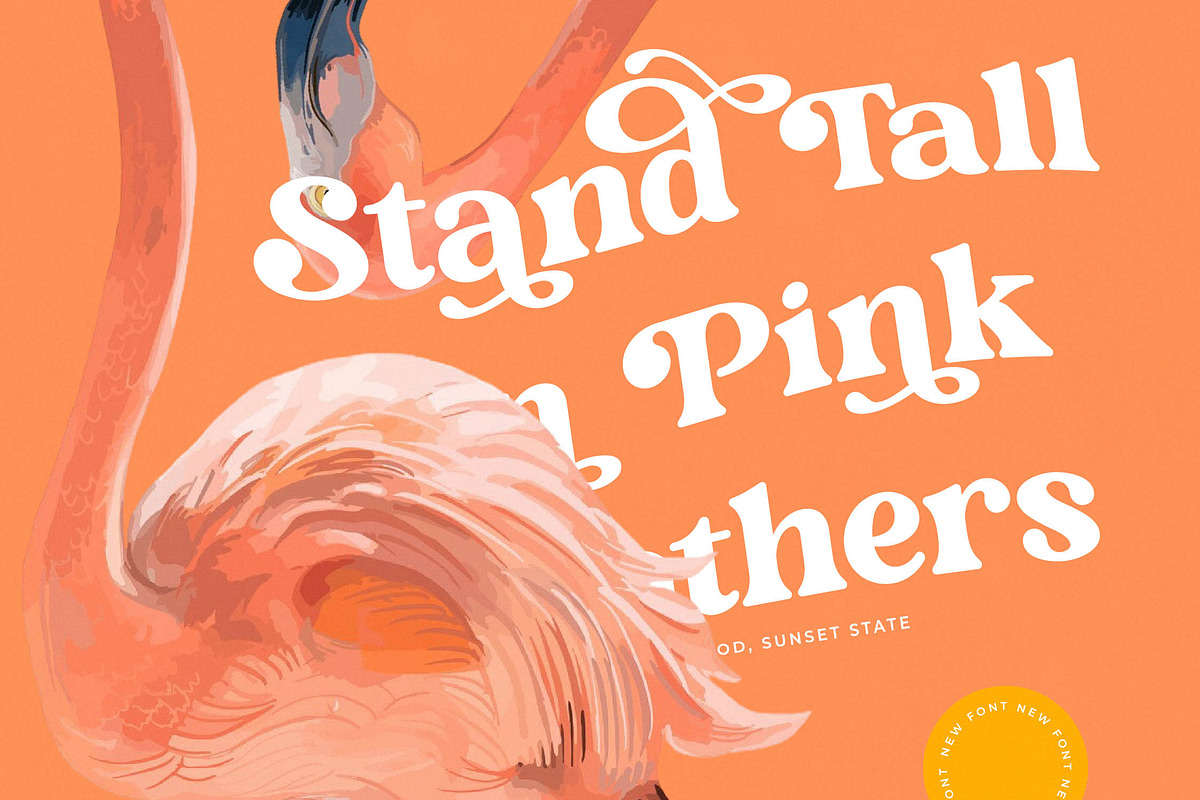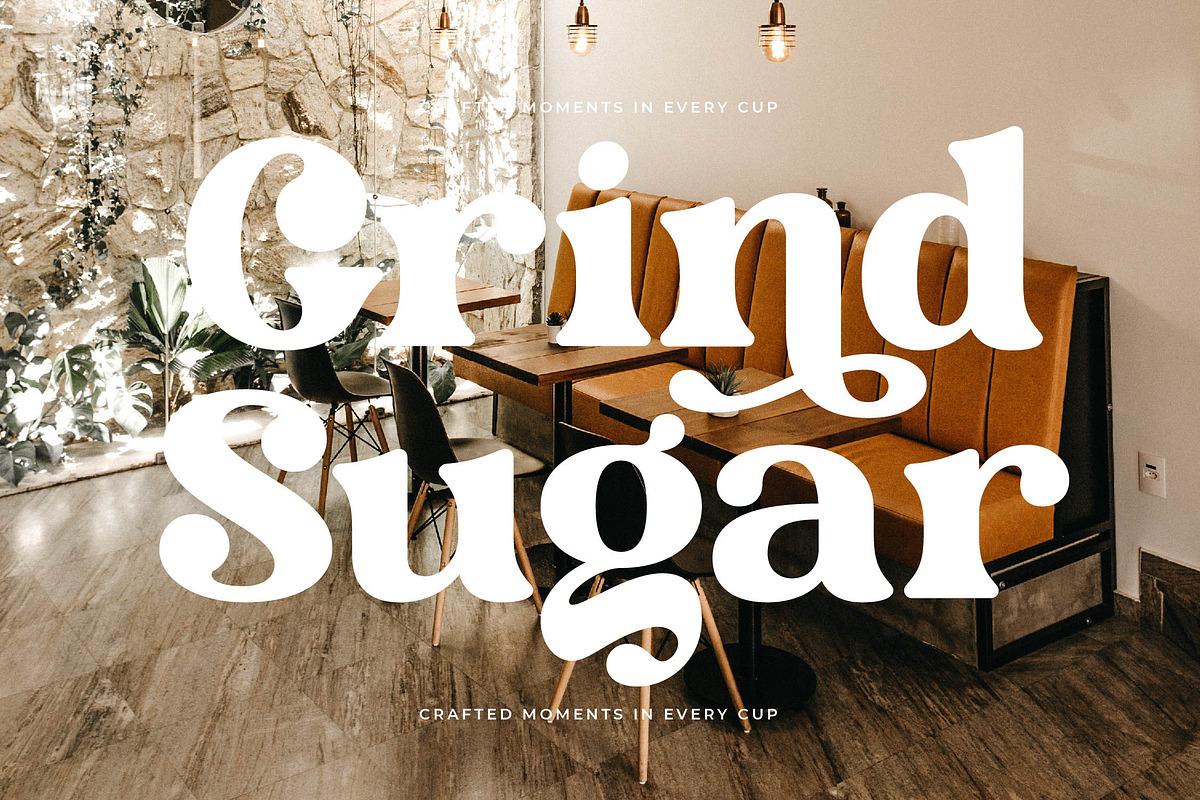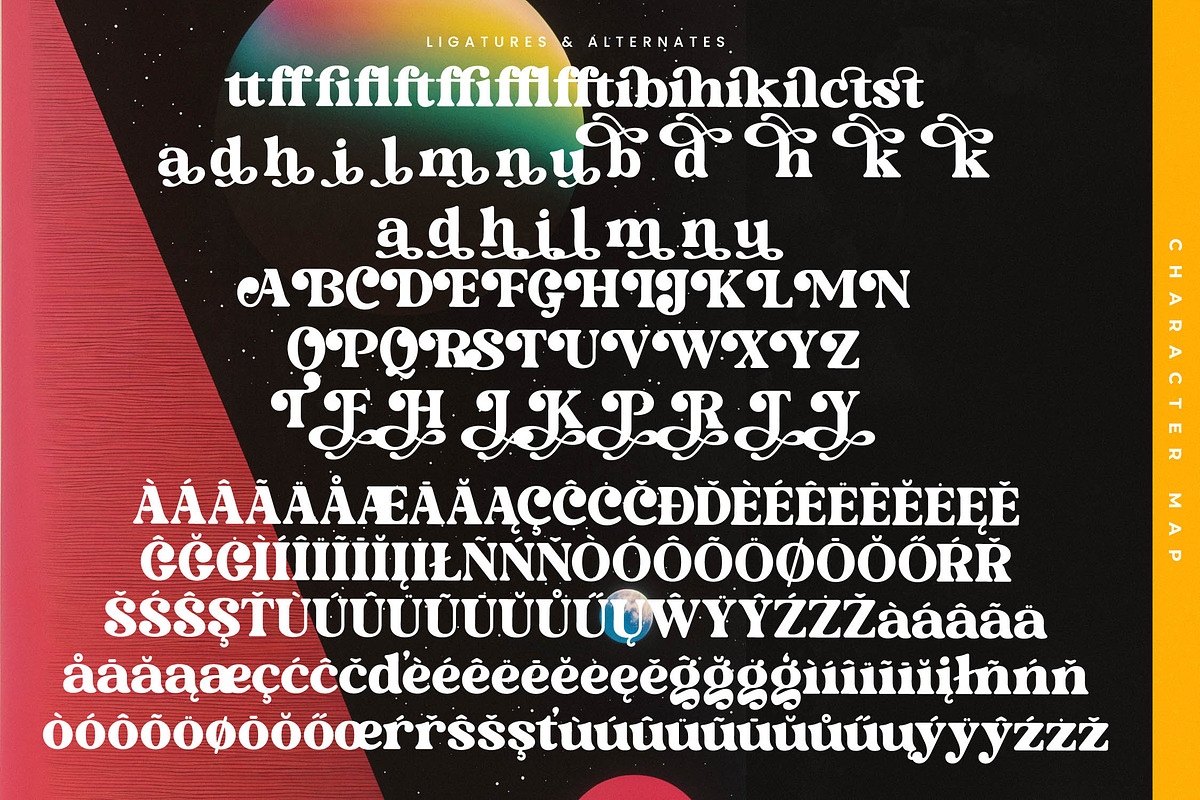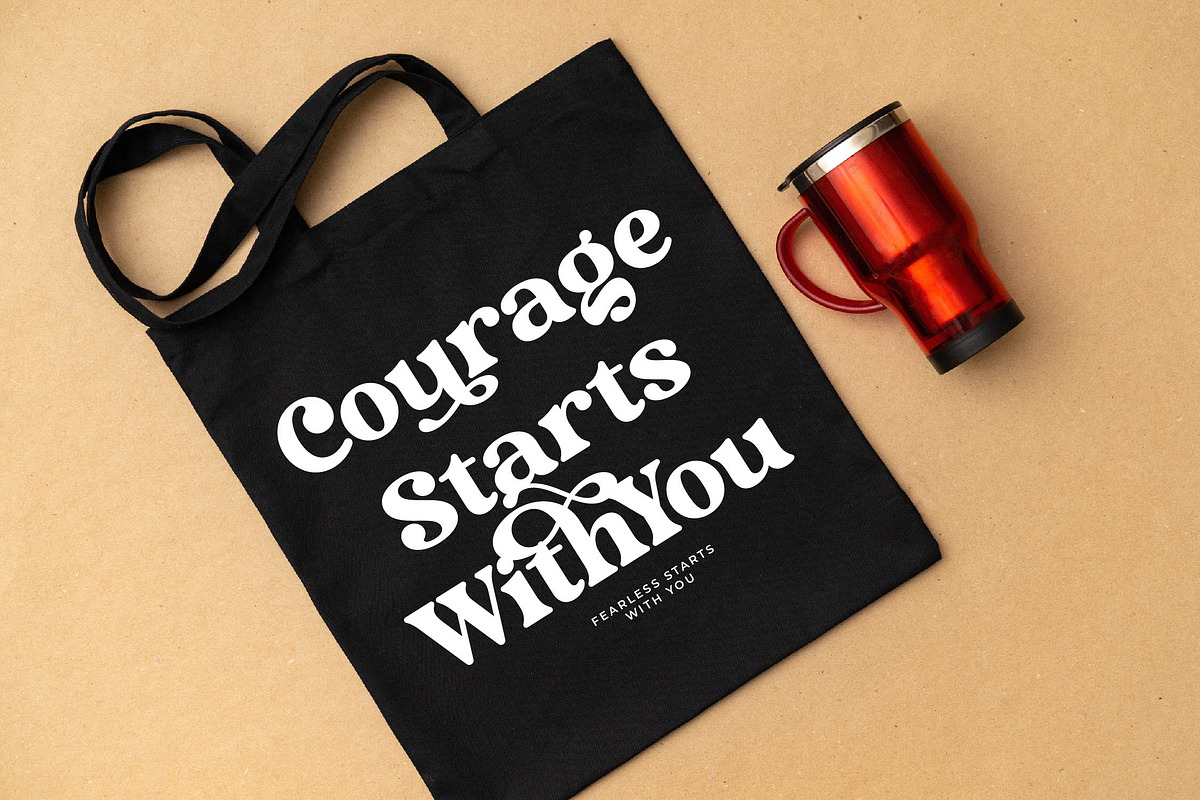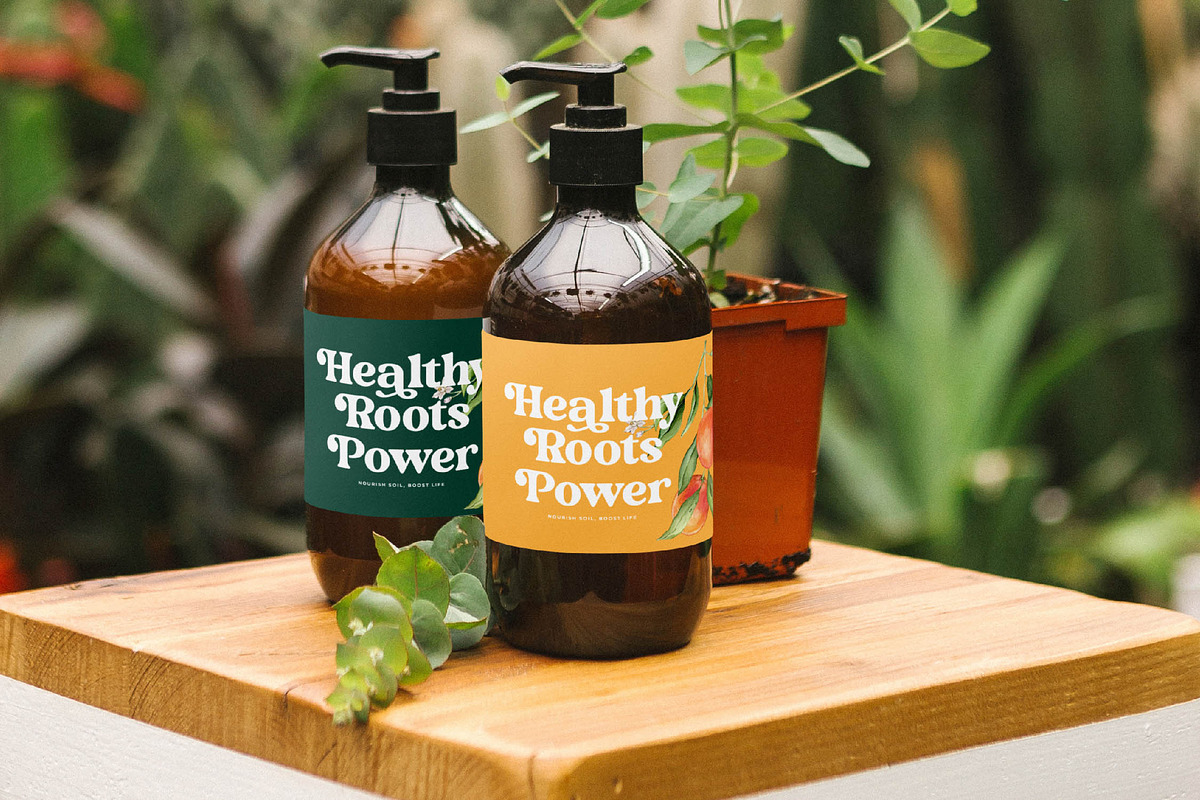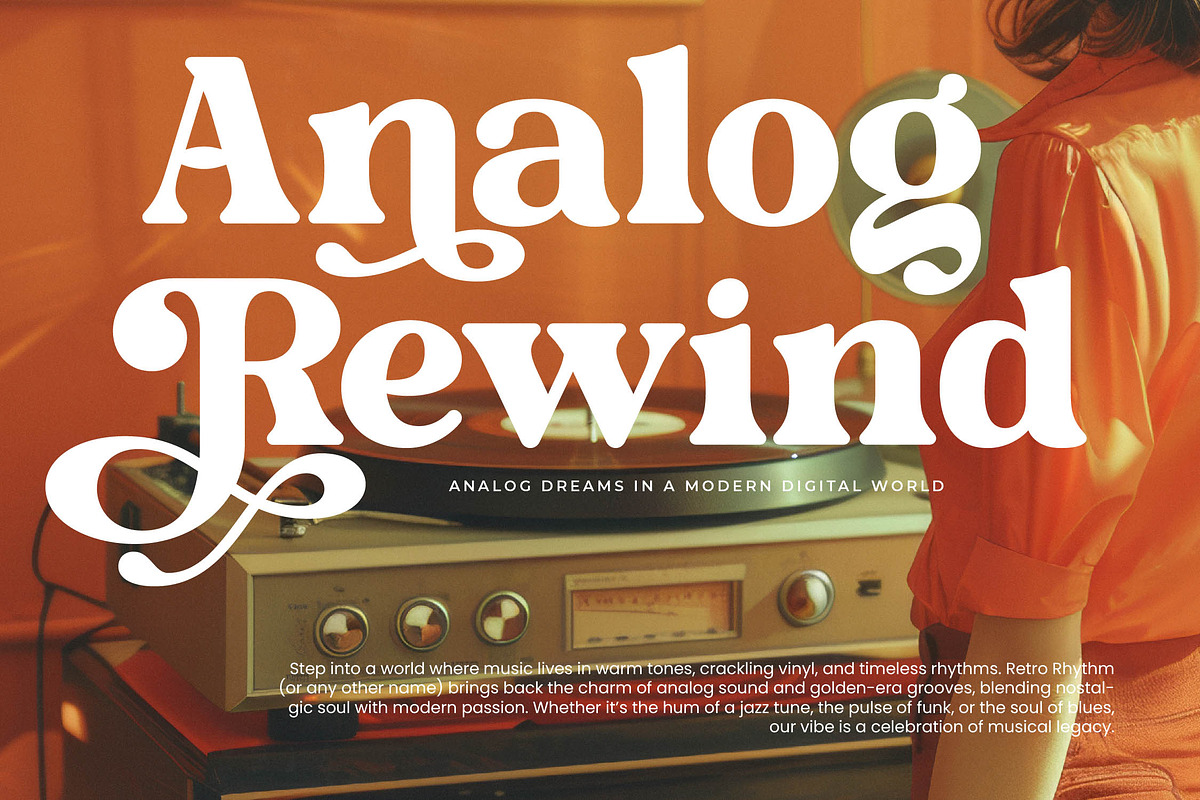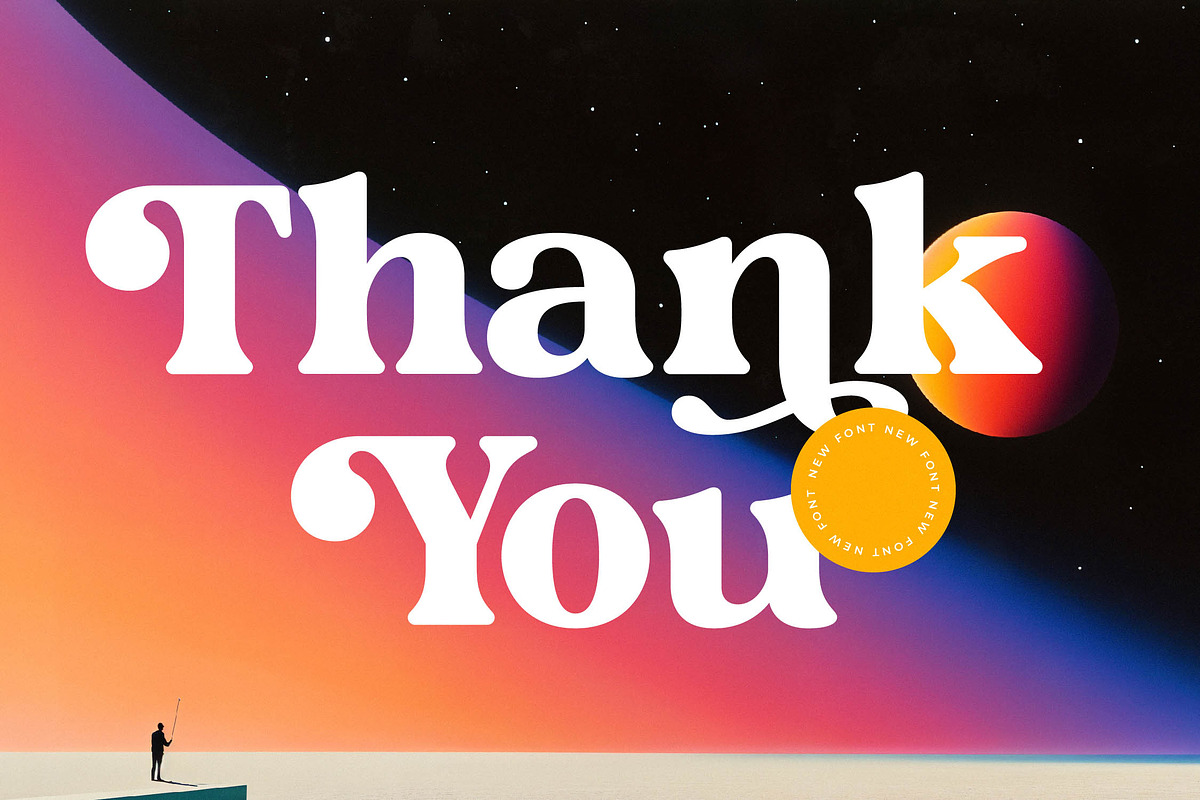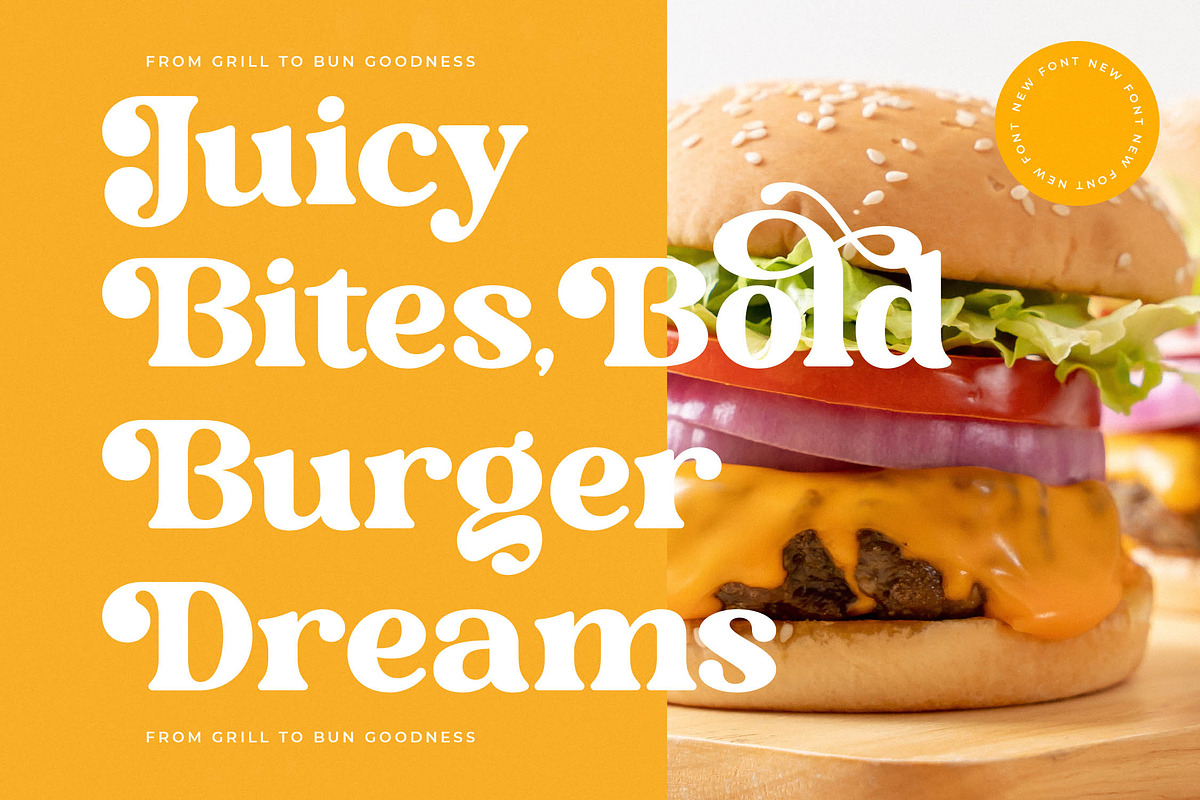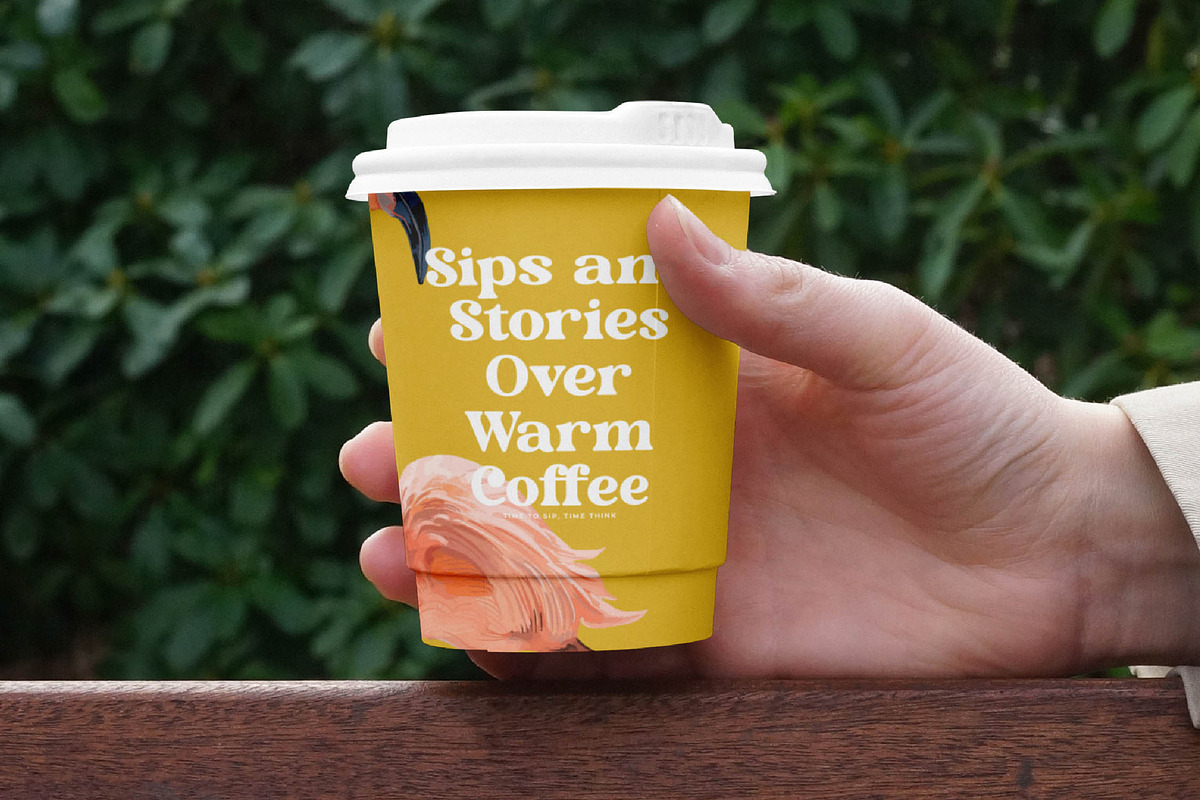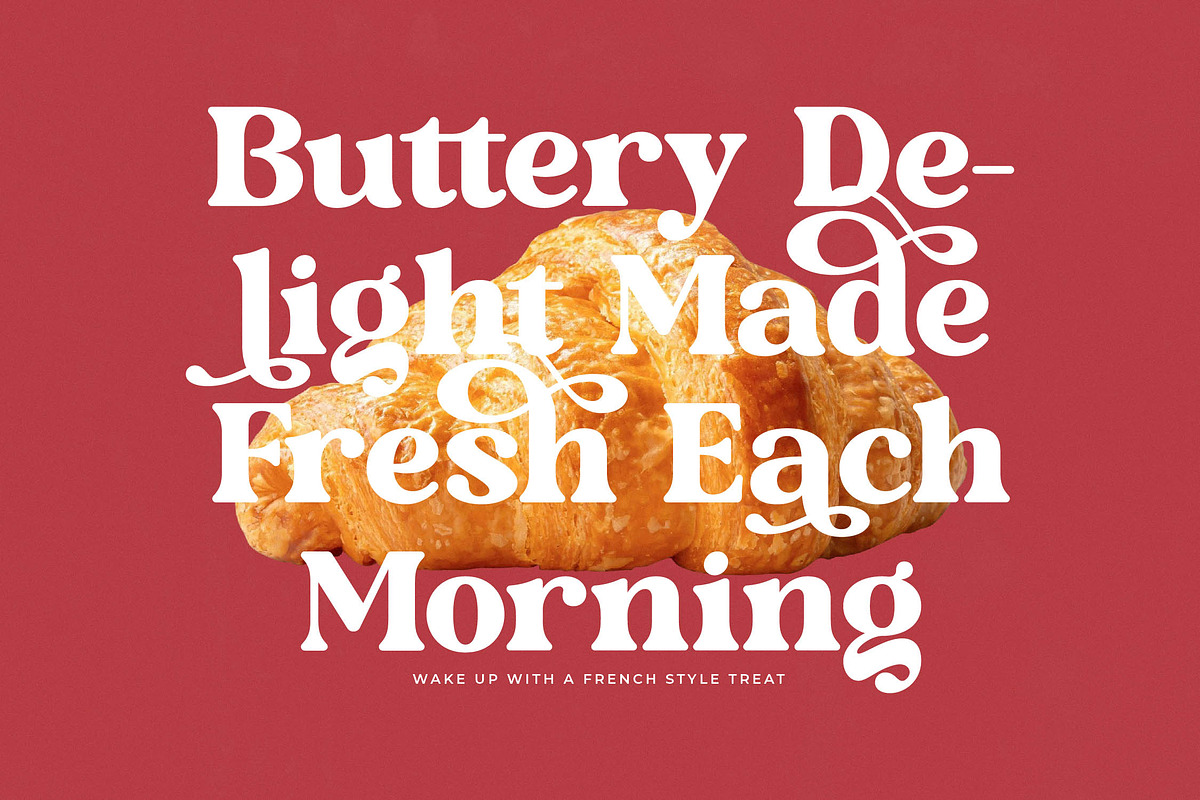
Monday Funky Modern Serif Font
Step into a world of rhythmic elegance and bold expression with Monday Funky, a typeface designed to capture the soulful essence of contemporary design. This font is more than just a set of characters; it is a visual statement that brings a vibrant, energetic personality to every project it touches.
Drawing deep inspiration from the celestial and cosmic aesthetics of the psychedelic era, this font blends fluid curves with sharp, modern edges. The atmosphere it creates is one of timeless wonder, bridging the gap between nostalgic retro vibes and the clean sophistication of tomorrow's design landscape.
This modern serif display exudes a sense of luxury typography through its striking high-contrast serif architecture. As an essential editorial font, it is built to deliver an immediate branding impact, ensuring that your headlines and titles command attention with a perfect balance of weight and grace.
Aligning perfectly with the current modern serif trend, this typeface is a masterclass in editorial display fonts that prioritize personality. Its character-driven typography makes it a standout choice for creators looking to move beyond standard layouts and embrace a more bespoke, artistic aesthetic.
Whether you are crafting a unique logo design, developing a cohesive branding identity, or designing a sophisticated editorial layout, this font provides the versatility you need. It is an ideal choice for high-end packaging, romantic wedding invitations, and cutting-edge fashion marketing materials.
To ensure complete creative freedom, the typeface is packed with a wide array of ligatures and alternates that allow for custom typographic flourishes. Combined with its decorative swashes, comprehensive multilingual support, and extensive international characters, it is a global tool for world-class design.
- Ligature 14 Alternate 56